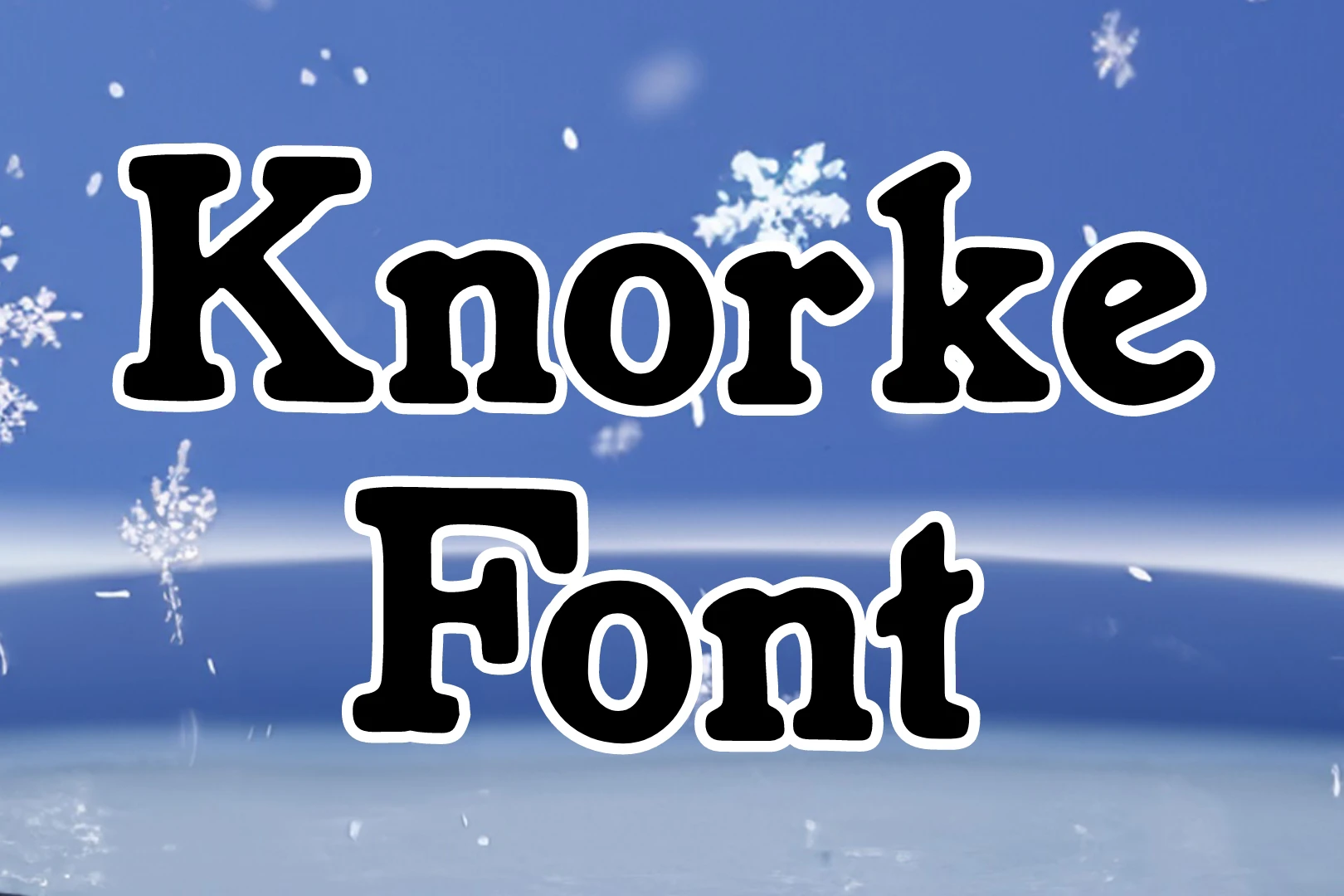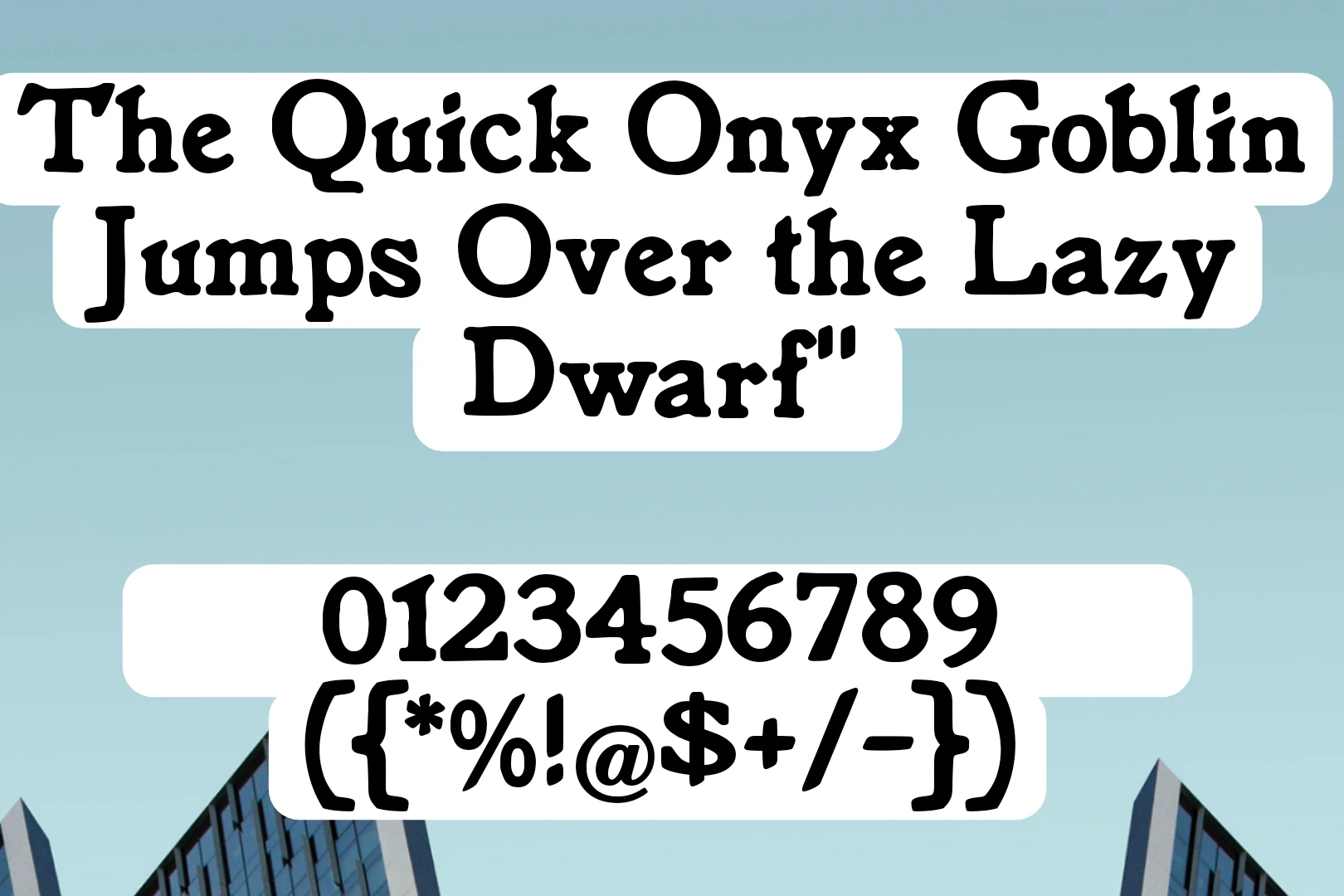
Knorke Font
Knorke Font, crafted and introduced by Peter Wiegel, is a testament to high-quality design and aesthetic appeal. A serif font, Knorke boasts remarkable glyphs and textures that set it apart in the world of typography. Whether you’re working on a website, designing a logo, or composing a document that demands a distinctive appearance, It proves to be a versatile choice. This font also excels in print, offering a visually pleasing experience across various mediums.
It boast a diverse array of characters and styles, offering a rich texture that enhances your typographic experiences. Notably, this font features an online generator tool, providing users with the ability to effortlessly transform plain text into stylish and enchanting shapes. The Knorke texture, with its versatility and creative possibilities, introduces a dynamic element to the world of typography.
Peter Wiegel’s attention to detail and design finesse shines through in Knorke, making it not just a typeface but a creative tool that enhances your visual communication. With a unique character and thoughtful design elements, Knorke opens up a realm of possibilities for those seeking a font that goes beyond the ordinary.
Uses of Knorke Font
Knorke Font finds its place seamlessly in a variety of design projects. Whether you’re a web designer aiming for a fresh and sophisticated look, a brand creator in search of a distinctive emblem, or someone working on print materials, Knorke fits the bill. The remarkable glyphs and textures of this font contribute to a unique visual identity, making it an excellent choice for those who appreciate the power of well-crafted typography.
Can I use Knorke Font in my logo design?
Yes, This font is suitable for logo design. Its distinctive glyphs and textures can add a unique touch to your brand identity.